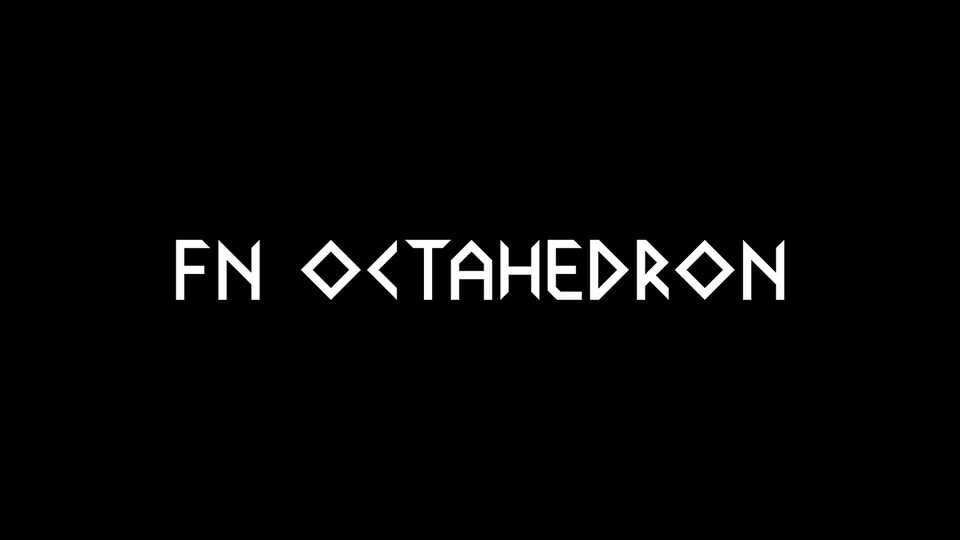
Download FN Octahedron font, a modern futuristic typeface that combines minimalism, expressive geometry and runic style, perfect for headlines, logos, posters and digital content.
Designer: Fox Nóvak